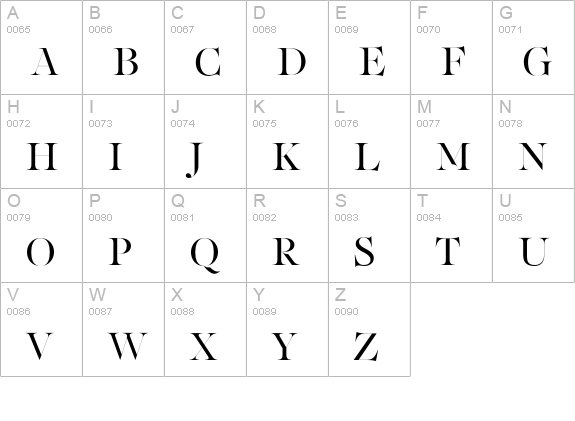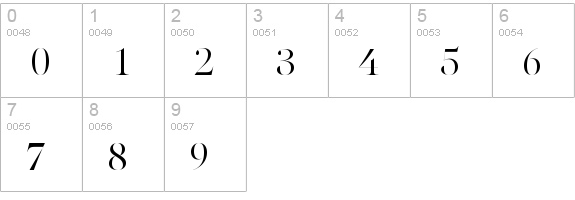
PFRegalFinessePro-Regular is the standard, neutral variant in the PFRegalFinessePro typeface family \xE2\x80\x94 well suited to general body text, paragraphs, and standard typographic work.
PFRegalFinessePro-Regular is a meticulously crafted font that exudes sophistication and elegance. Its delicate serifs and graceful curves make it a perfect choice for projects that require a touch of refinement and class. This font strikes the perfect balance between classic and modern, making it versatile enough for a wide range of design applications. The best part? PFRegalFinessePro-Regular is available for free download at FontsMarket.com. Whether you're working on a wedding invitation, a branding project, or any other creative endeavor, this font will add a touch of finesse and style to your work. Don't miss out on the opportunity to enhance your designs with this exquisite typeface that is freely accessible to all at FontsMarket.com.